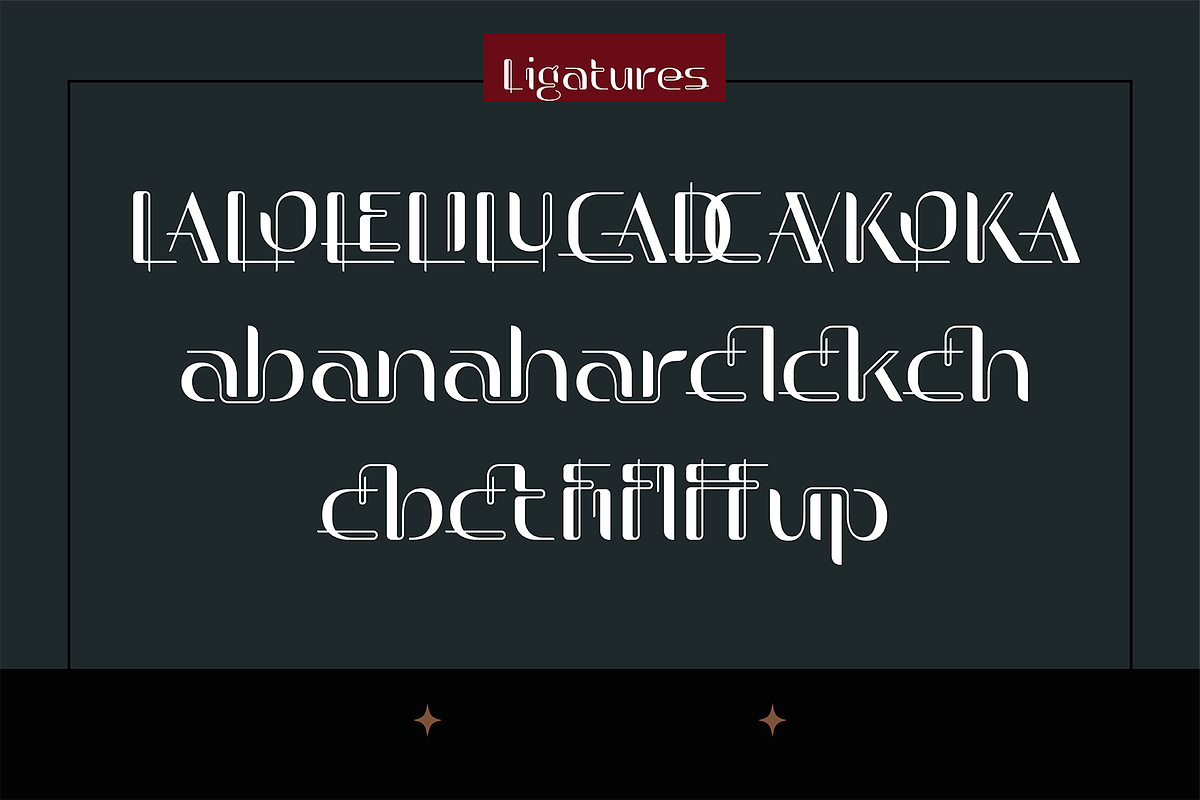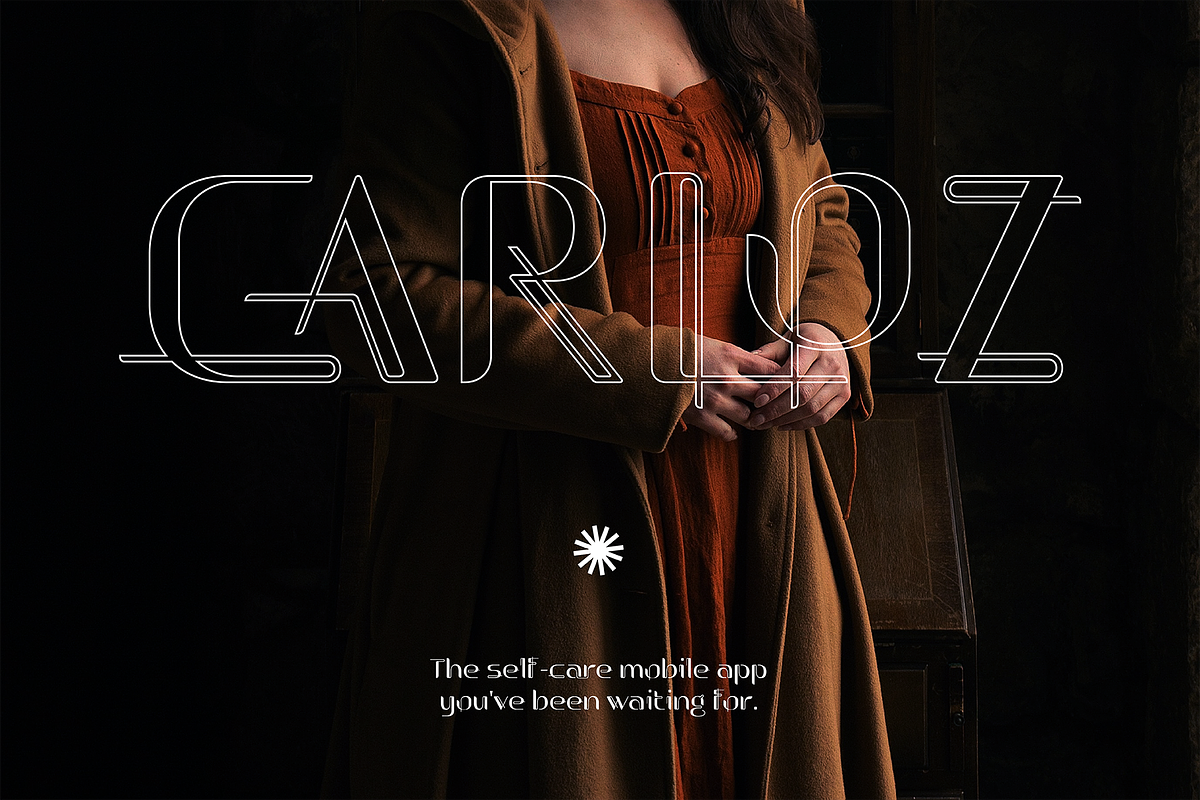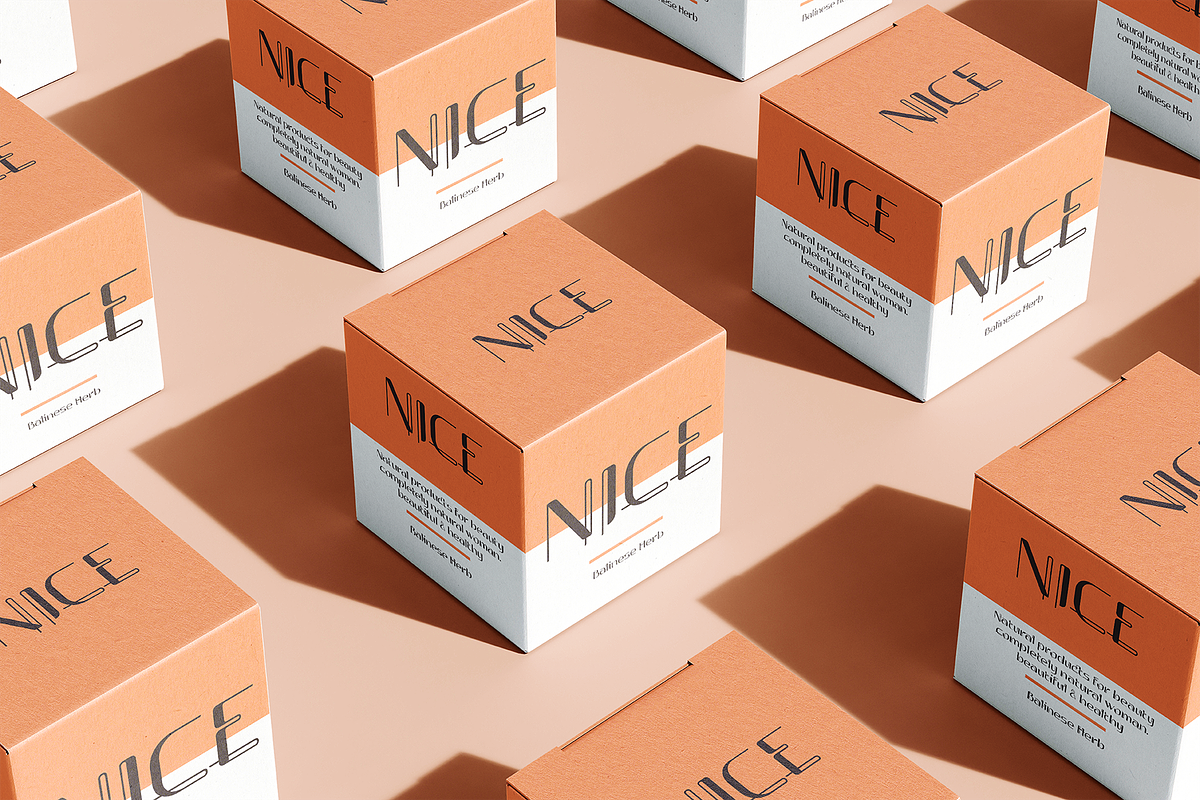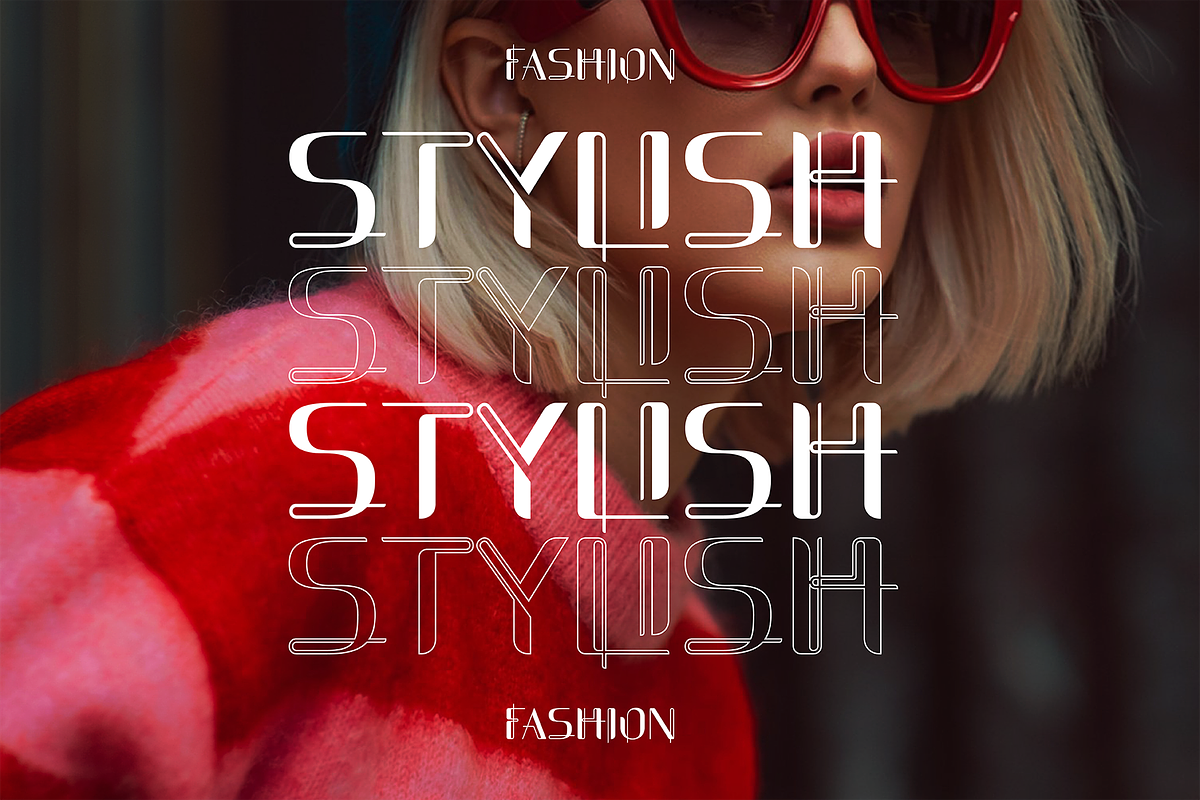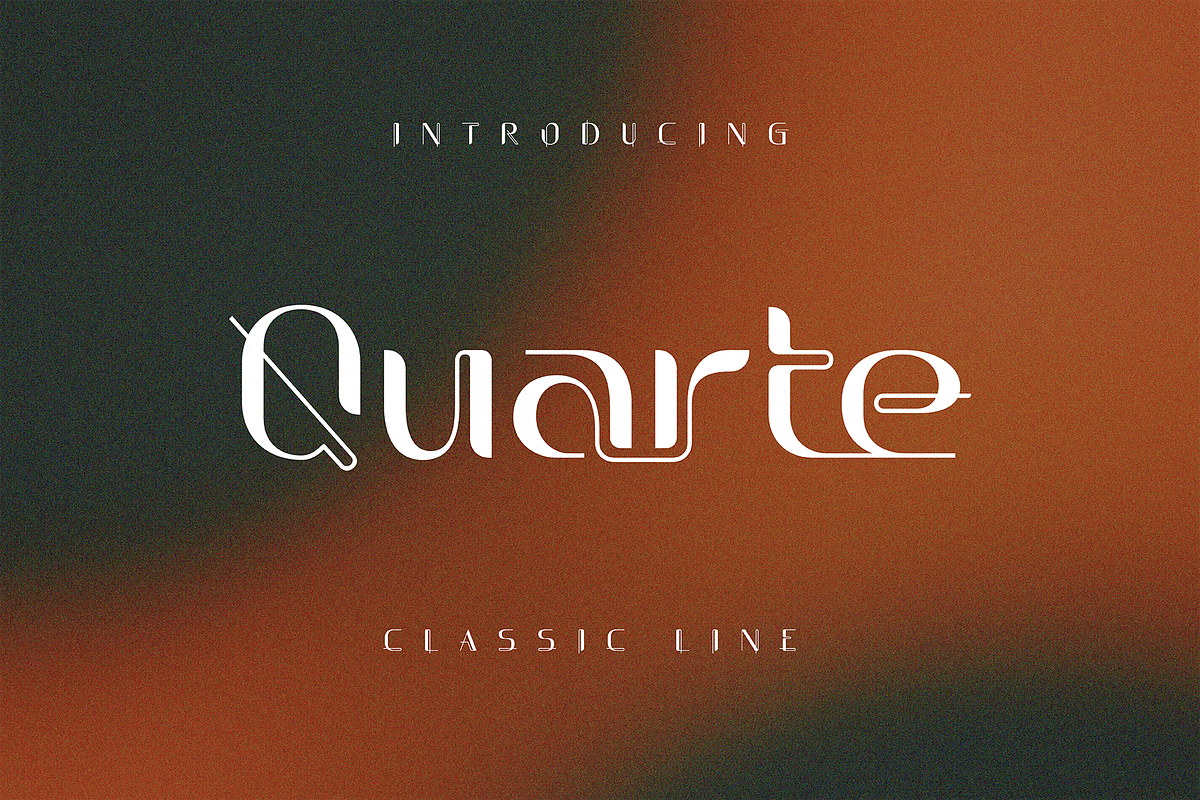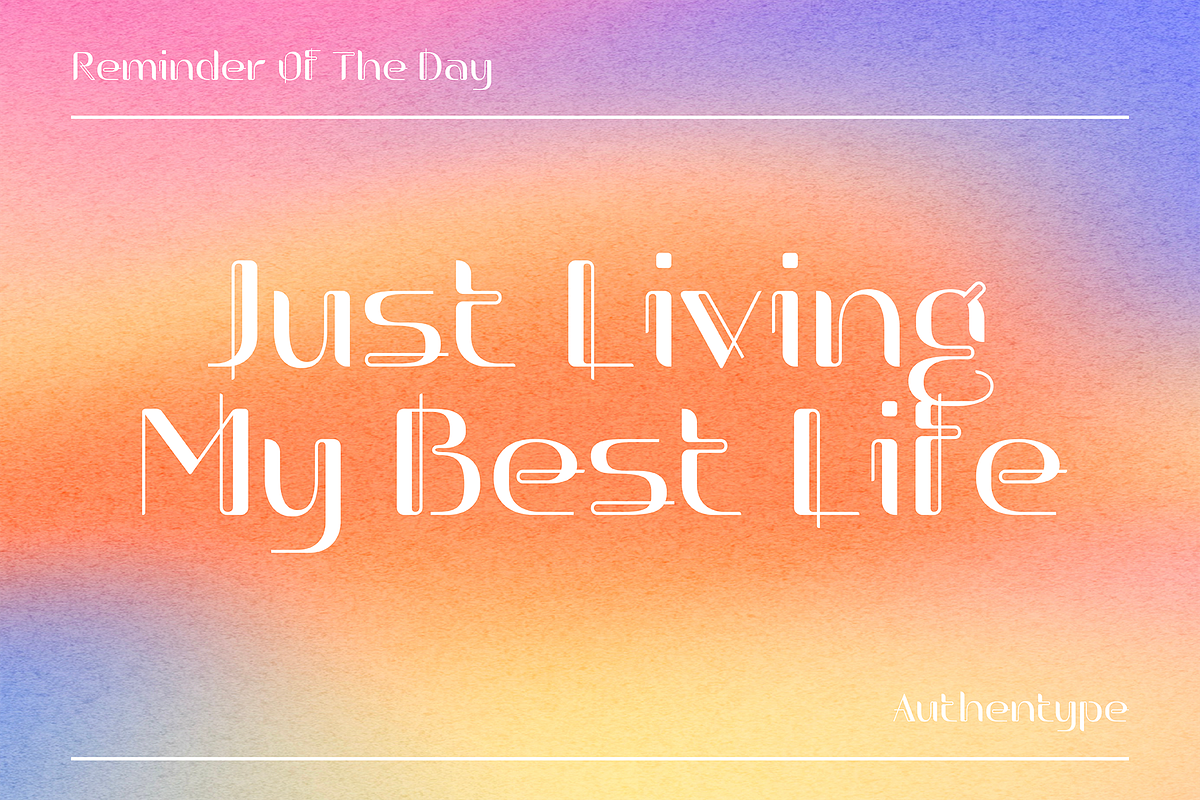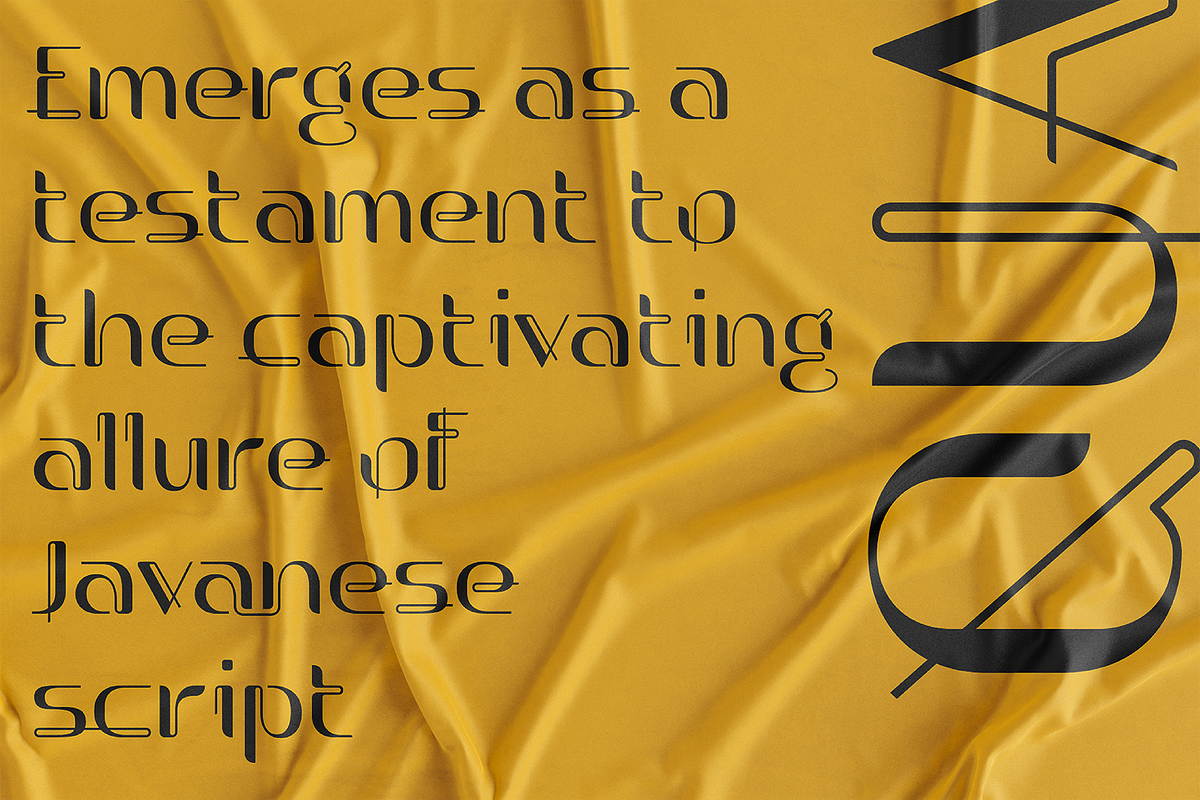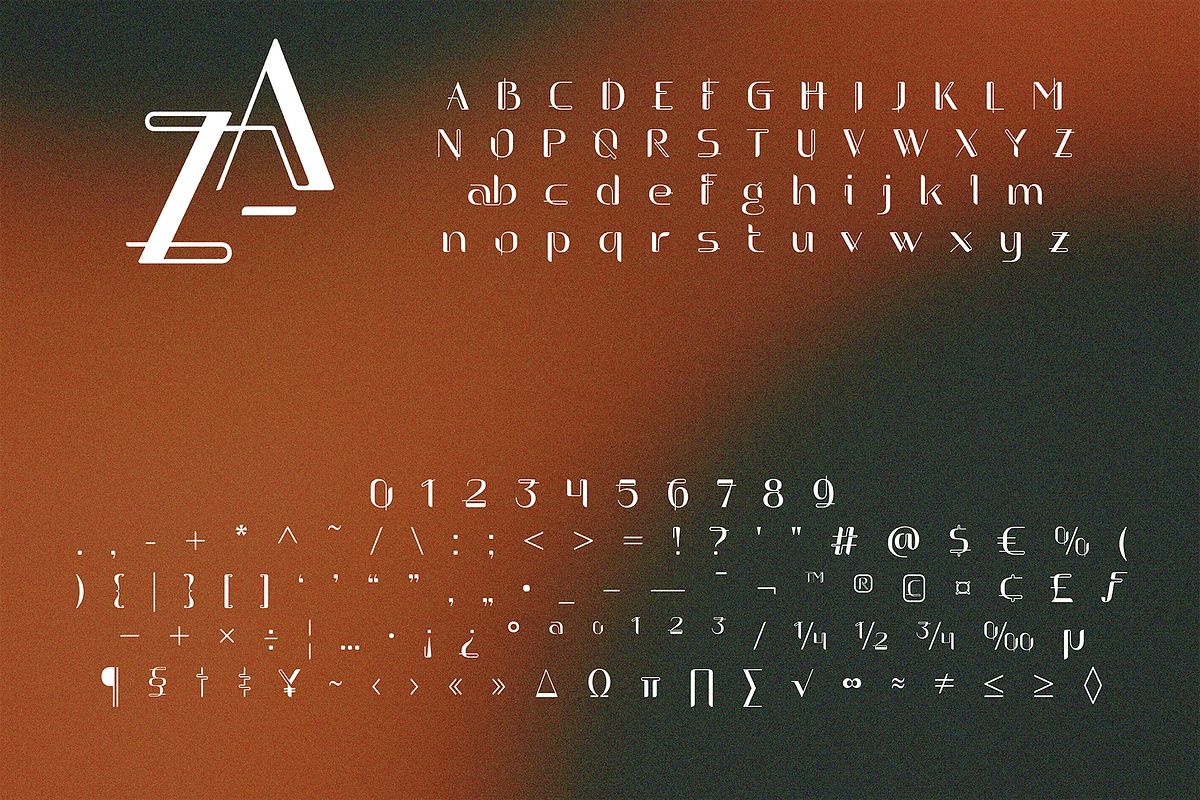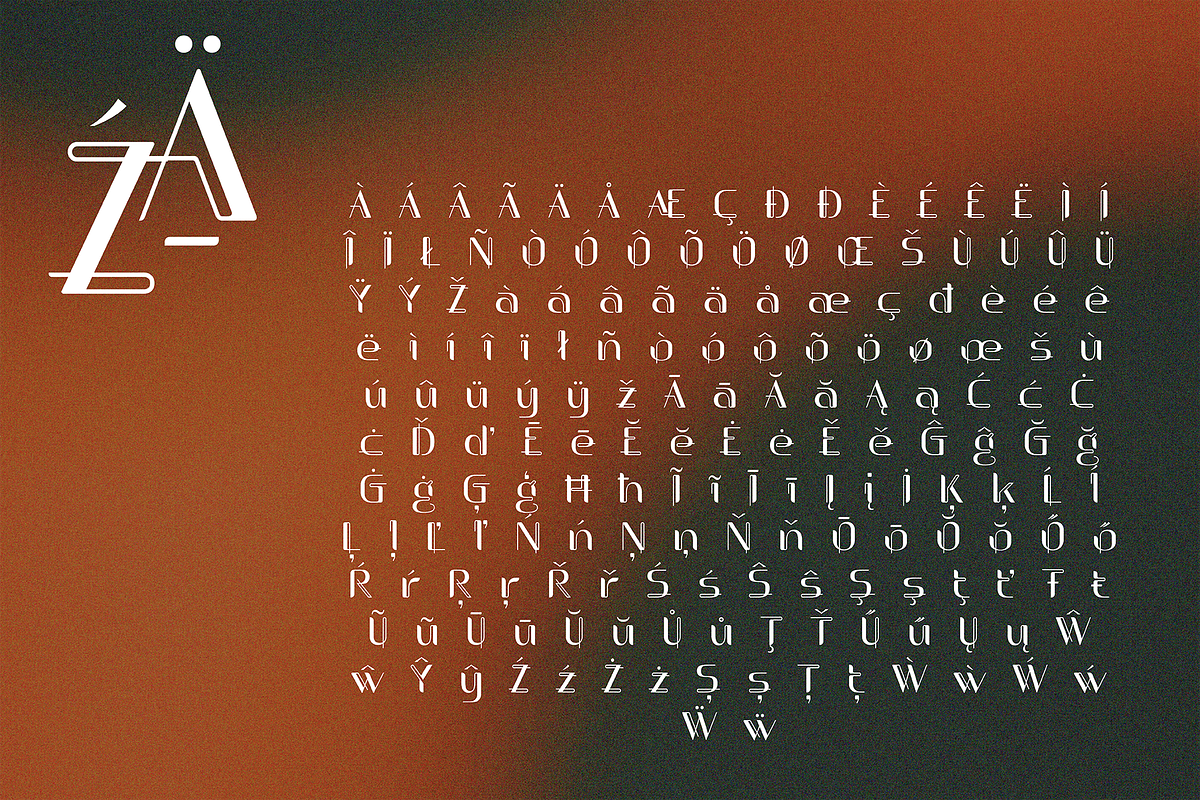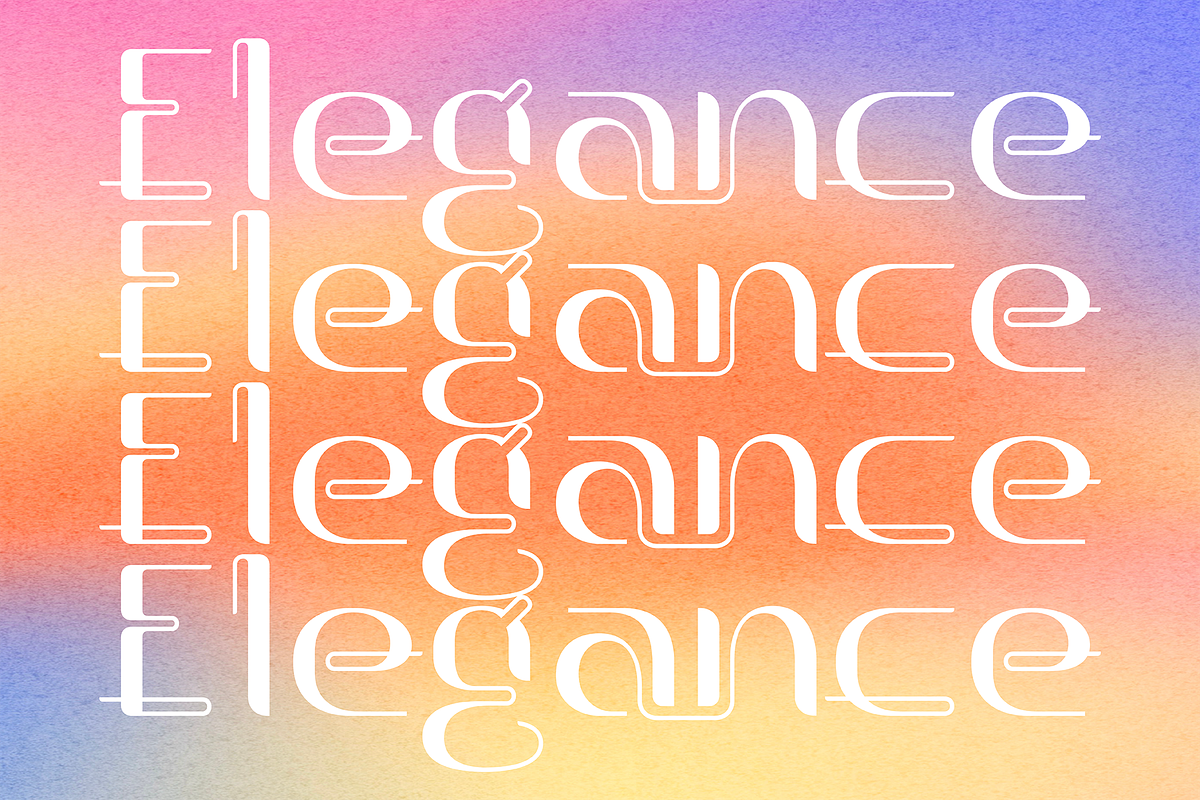
Quarte Classic Line
Quarte Classic Line emerges as a testament to the captivating allure of Javanese script, where graceful curves intertwine to form a font that exudes uniqueness and charm.
This extraordinary typeface embodies the rich cultural tapestry of Indonesia, captivating your senses with a visual symphony that celebrates the nation's bountiful natural treasures.
Prepare to embark on a typographic journey that seamlessly merges art and heritage, unlocking a world where the written word takes on a mesmerizing life of its own.